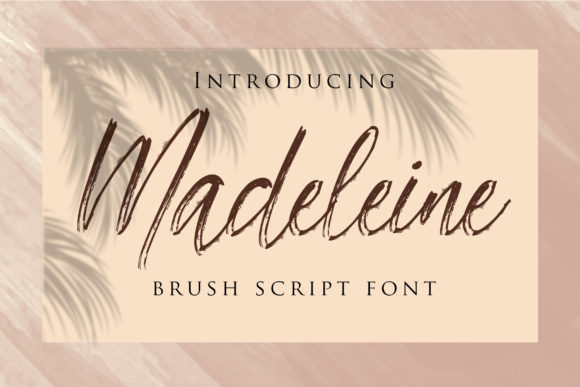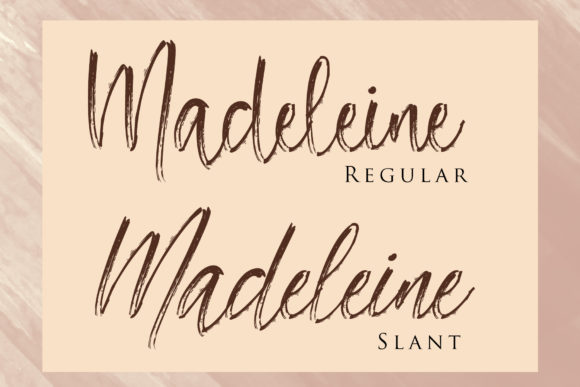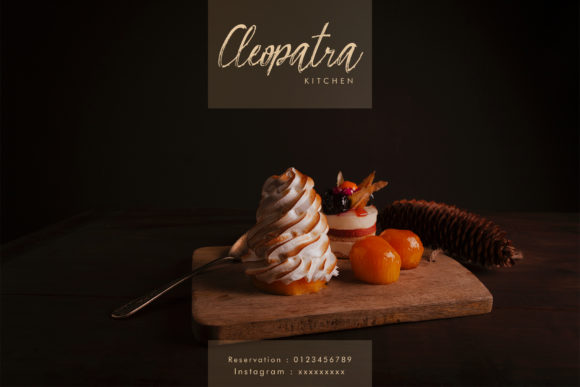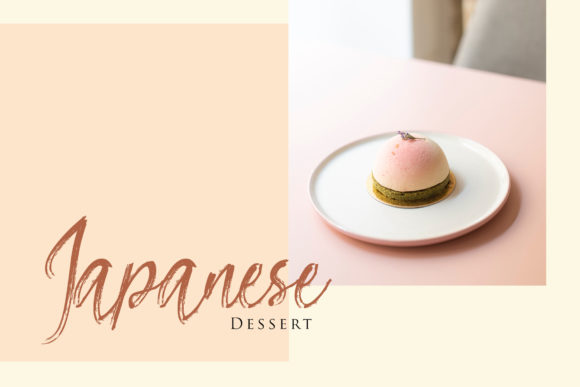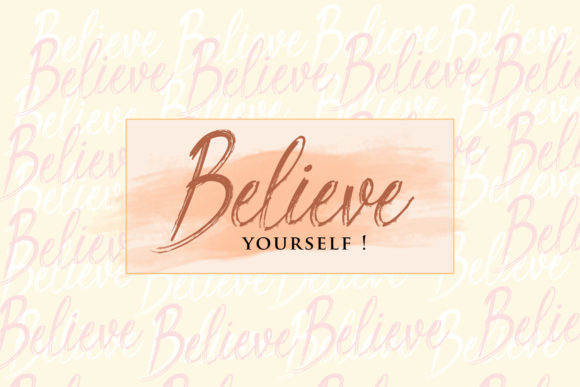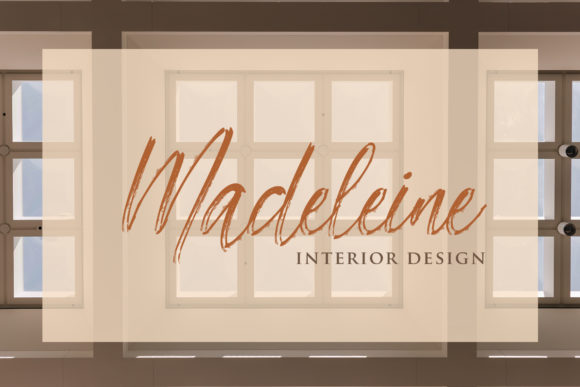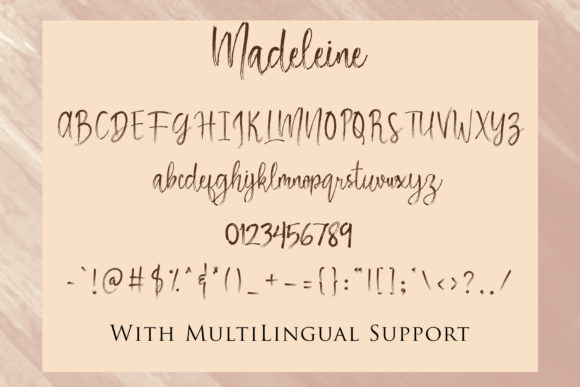
HomeScript FontsMadeleine Font Script Fonts Madeleine Font FacebookXPinterestWhatsApp Madeleine Font Poster 2 Madeleine Font Poster 3 Madeleine Font Poster 4 Madeleine Font Poster 5 Madeleine Font Poster 6 Madeleine Font Poster 7 About Madeleine Font Madeleine is a versatile handwritten brush script font. Fall in love with its contemporary charm. DOWNLOAD NOW People also explored Jungland Outline Extra Bold Font Notograph Qaripon Font Summer Day Font Astone Blood Font Ramayana Font Bring Font Starships Font Saint Abigail Font 285 0 TagsMadeleine Font Previous articleAprilea Script FontNext articleMortdecai Font LEAVE A REPLY Cancel reply Comment: Please enter your comment! Name:* Please enter your name here Email:* You have entered an incorrect email address! Please enter your email address here Website: Save my name, email, and website in this browser for the next time I comment. Personal Use Free Lynoselt Personal Use Free Read more about this font Unlock Endless Creativity with the FREE September Clipart Huge Bundle (Valued at $700!) Personal Use Free Read more about this font The Fourth Avenue Personal Use Free Read more about this font Huntry Personal Use Free Read more about this font BLOG Modern Sans-Serif Fonts That Brands Love in 2025 In 2025, modern sans-serif fonts remain a top choice for brands looking to project clarity, professionalism, and... To increase your work productivity, choose the most readable fonts. Free Fonts Risk: Why Free Fonts Can Be Dangerous for Designers Using Fonts in Digital Marketing: Tips to Strengthen Your Brand Identity